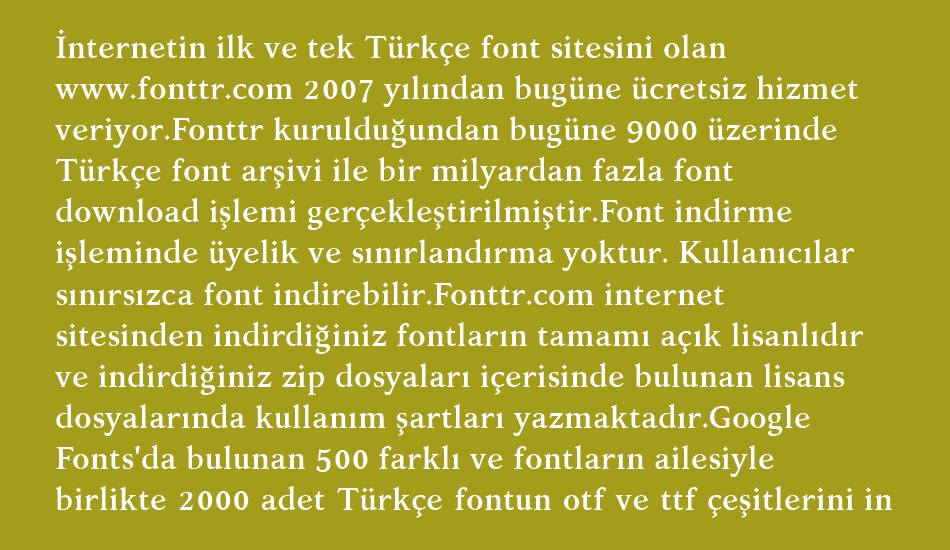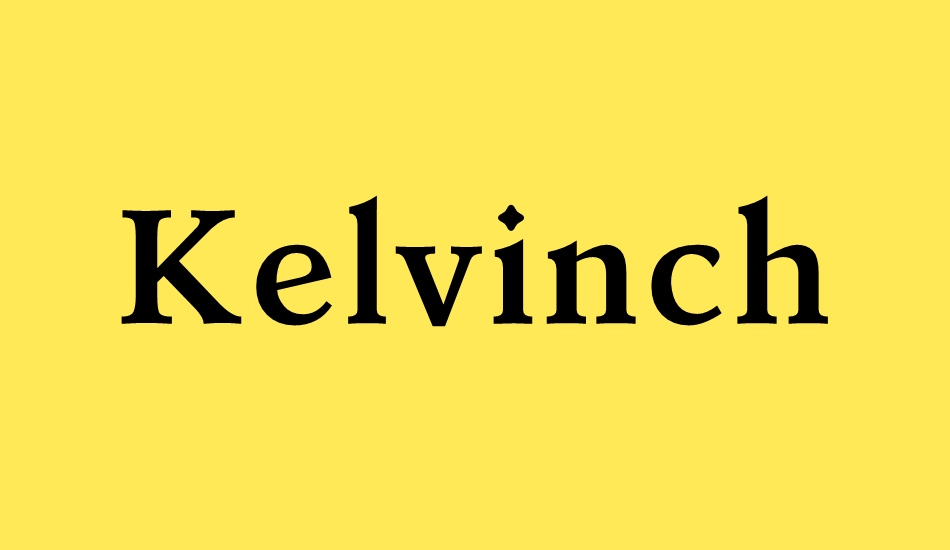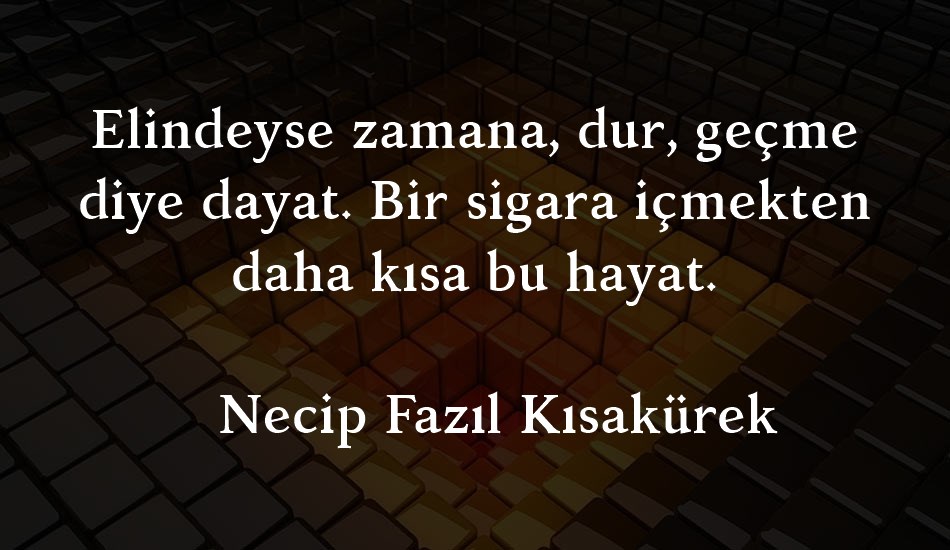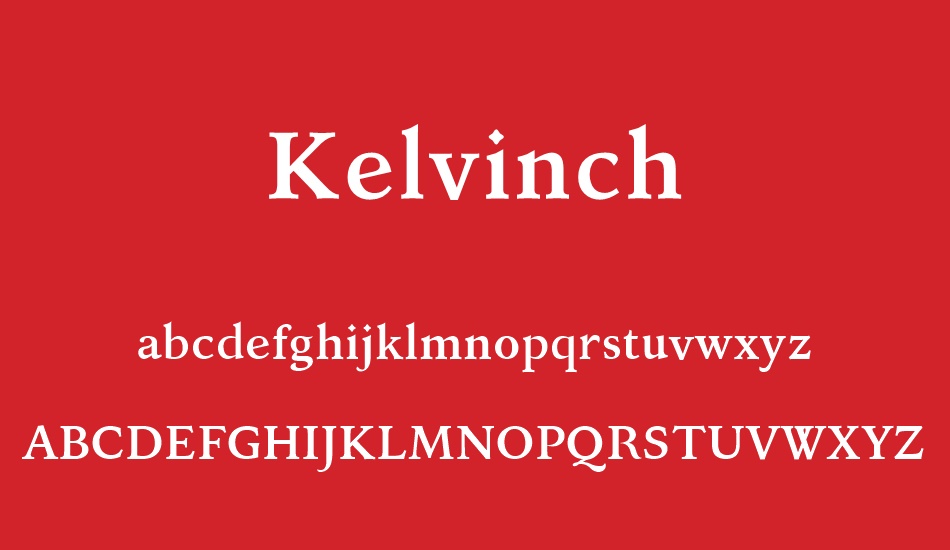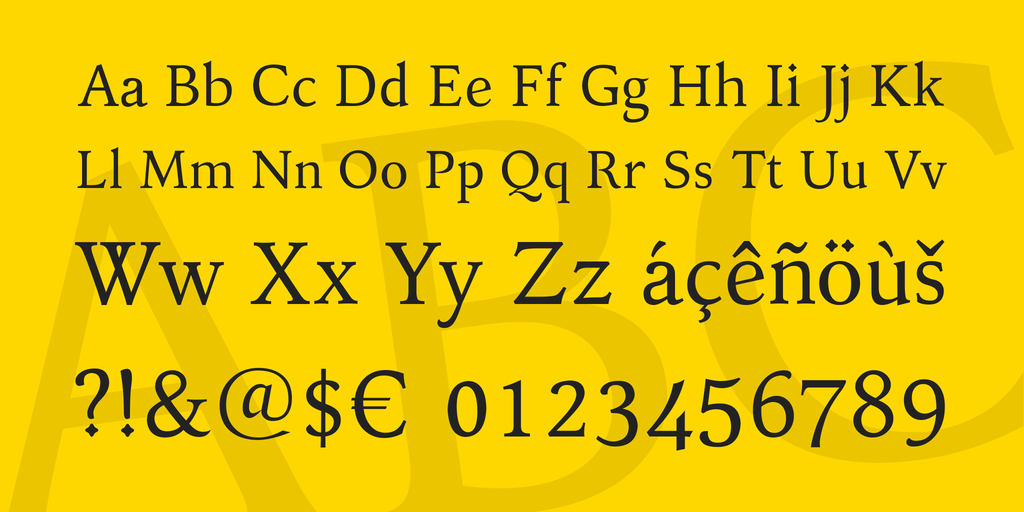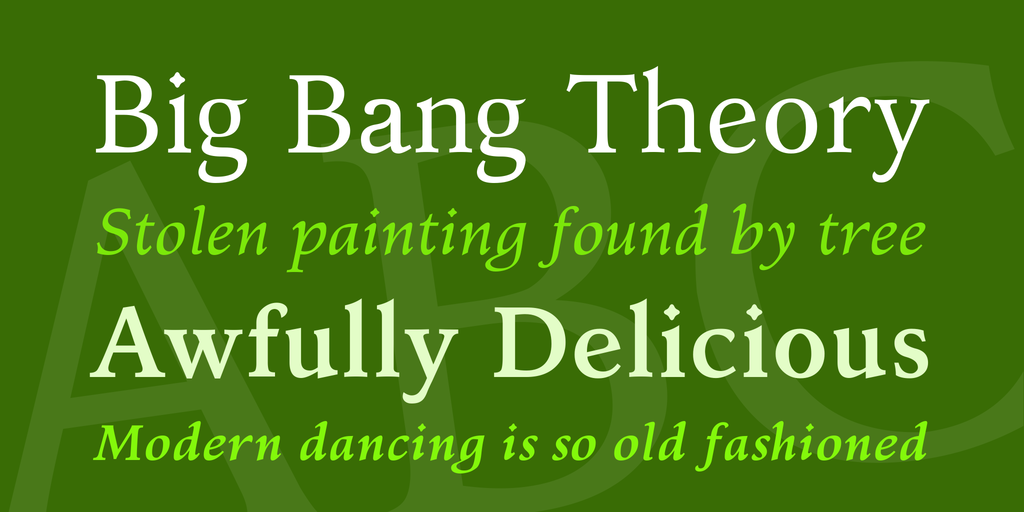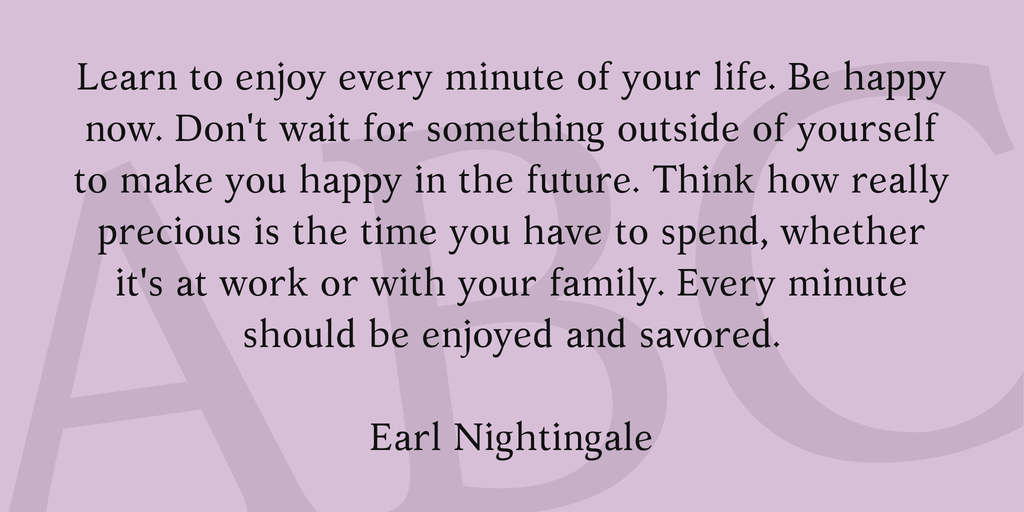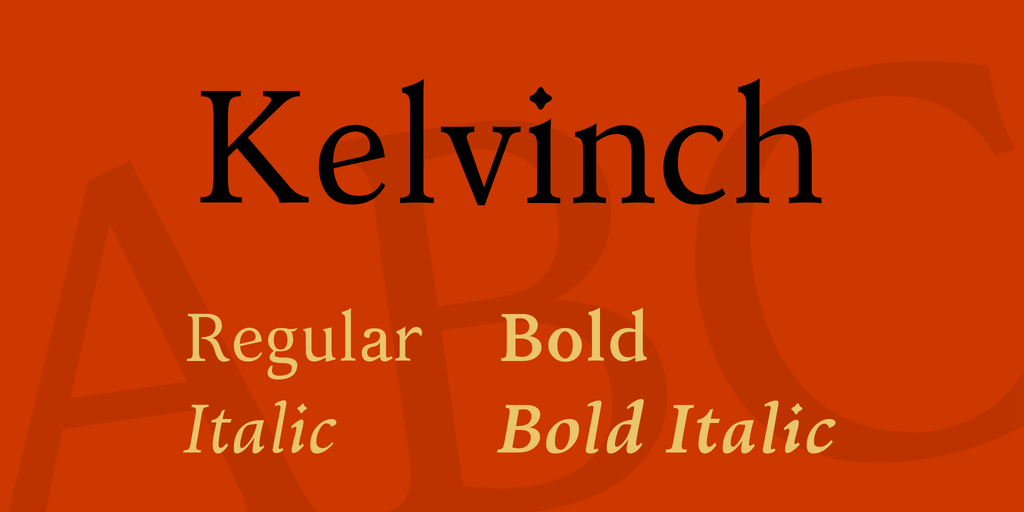
Kelvinch Font
Although Kelvinch is meant for body text I have endeavoured to make the characters as aesthetically pleasing as possible without compromising its objective to be comfortable to read in long texts.
It comes in Regular, Italic, Bold and Bold Italic faces.
It started out as my own personal font but somewhere along the way that changed and other people became interested in it and I took the decision to try to make it good enough that I wouldn't be embarrassed to know that other people were using it. I never once considered selling it.
It covers many Unicode blocks including Greek & Coptic, Cyrillic, Georgian, Armenian, Mathematical Operators, Miscellaneous Symbols, Dingbats, Runes, Letterlike Symbols, Arrows and a comprehensive coverage of most of the Latin blocks.
It has taken over a year to develop.
And I thought this was finished, how wrong I was.
Based on the feedback I received I corrected some mistakes and changed a few things including the crossbar on the Upper Case 'A' which most people thought was a mistake. It's a pity, Kelvinch has lost some of it's character, but then character is not what you want in body text, it can become tiresome very quickly, oh well ...
Added some more Open Type features and re-kerned the whole thing.
Minor update. I re-introduced the curved crossbar on the capital A as an open type stylistic alternative. The default is the straight crossbar.
Did the Historic Ligatures which I had always intended to do but in the midst of everything else it was forgotten until now. The characters were already there it was only the open type feature which needed adding.
Optimised all the glyphs, resulting in smaller files. Evened out and tweaked some of the kerning. Changed the ligatures to work better with Microsoft Word and added two characters new to the Unicode 9.0 standard.